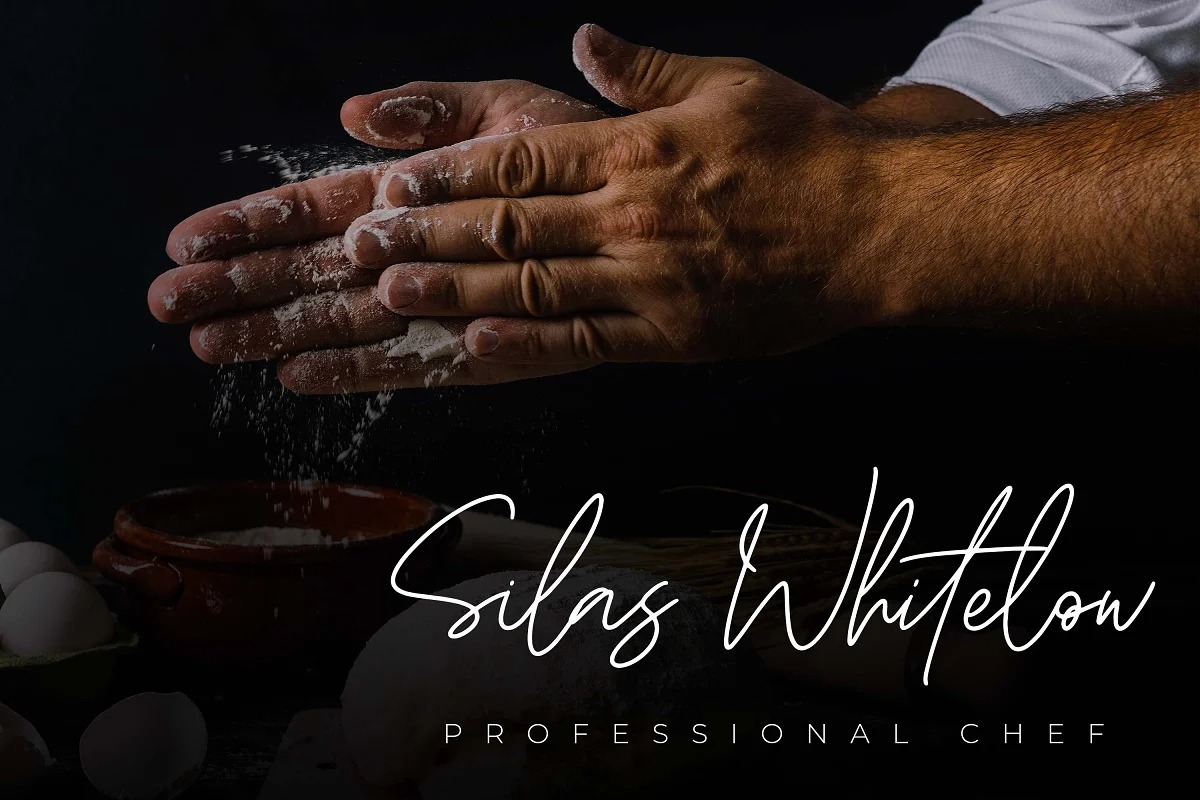
Handestonie Handwritten Font
It’s a popular and professional handwritten typeface. Modern and elegant, this typeface is made of beautiful creative strokes. this font is great for your creative projects such as watermark on photography, and perfect for logos & branding, photography, invitation, watermark, advertisements, product designs, stationery, wedding designs,label, product packaging, special events or anything that need handwritting taste.